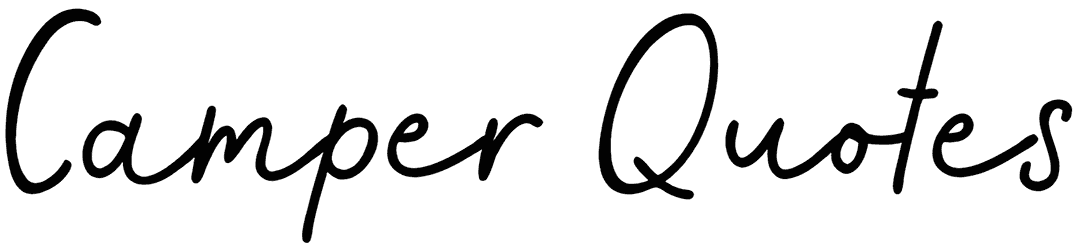
Camper Quotes Font
With a routine and modern form context, your design can communicate well with your viewers. Camper Quotes is a handwritten font with a minimal and realistic letter style. With an almost full cover of characters, this motivational quote font can be used for various layouts such as postcards, planners, invitations, apparel, and so on.